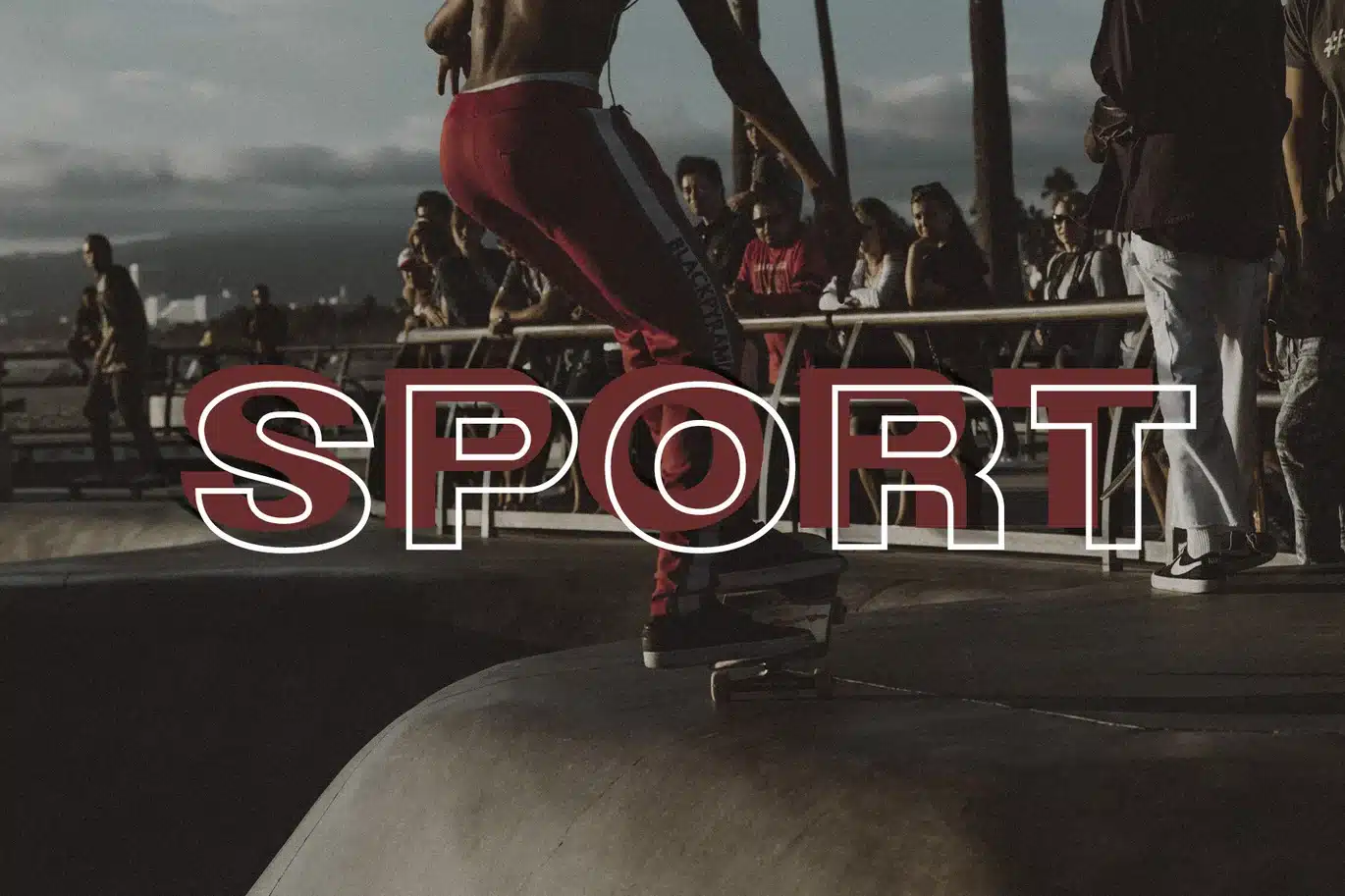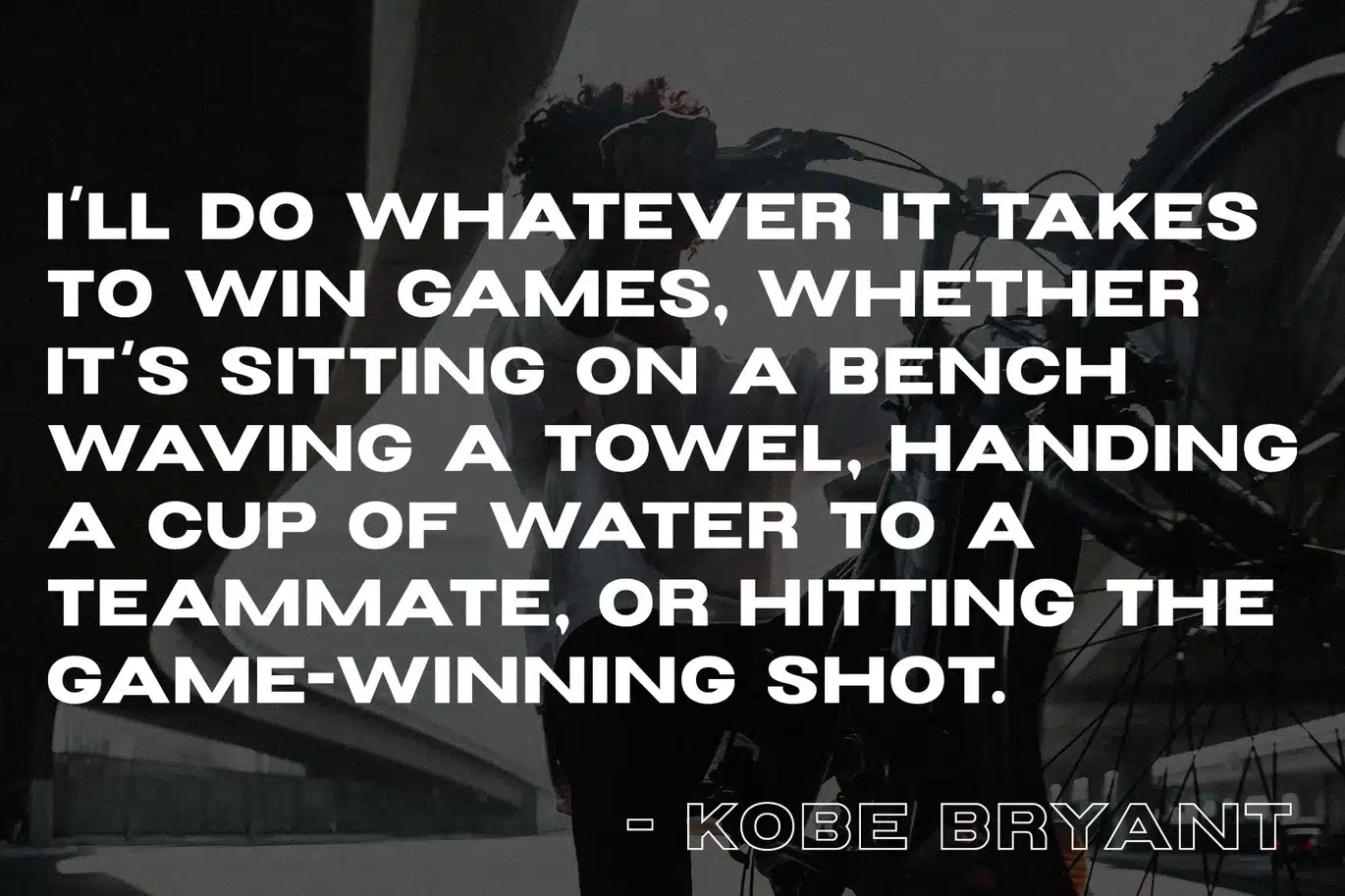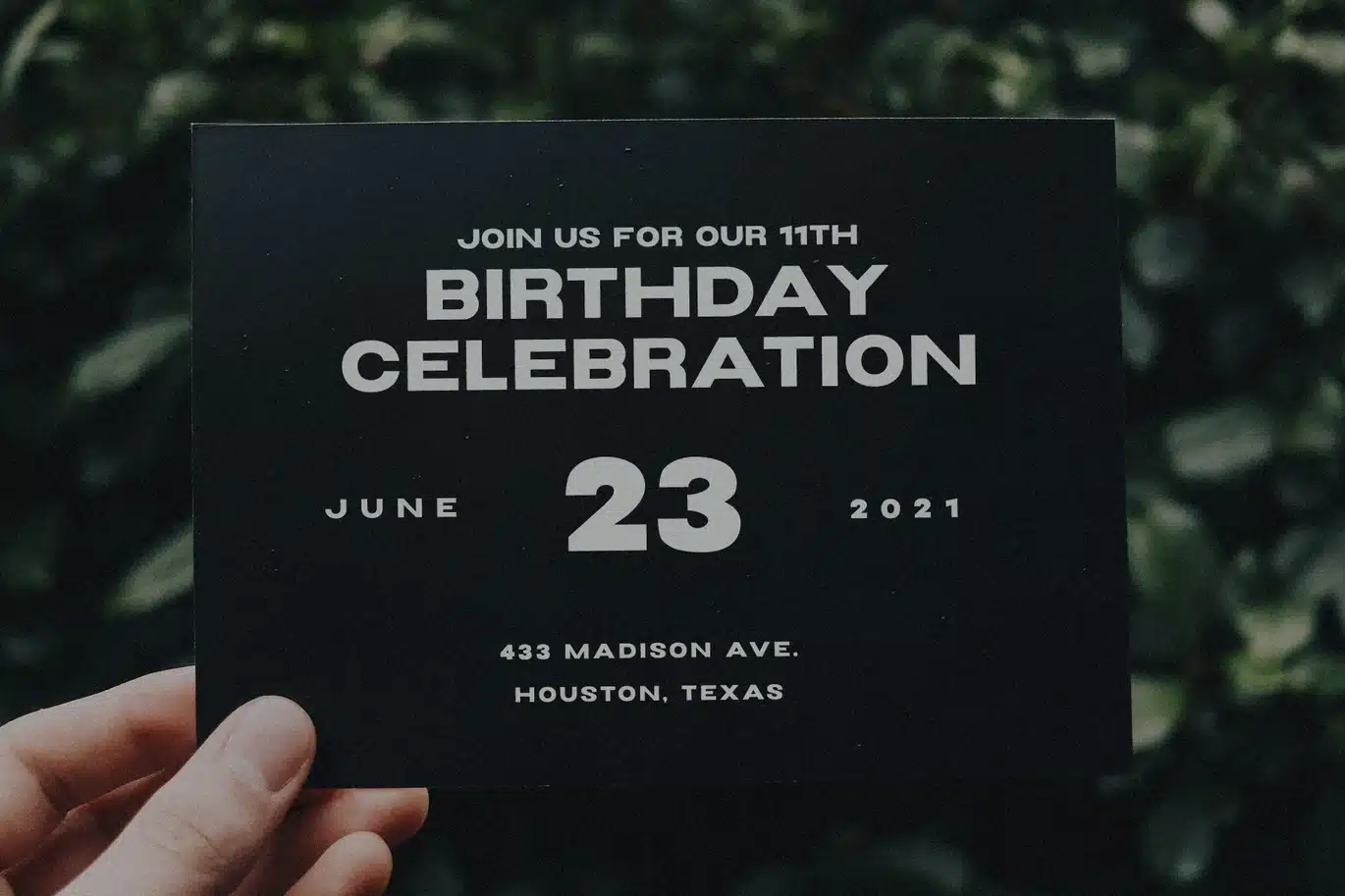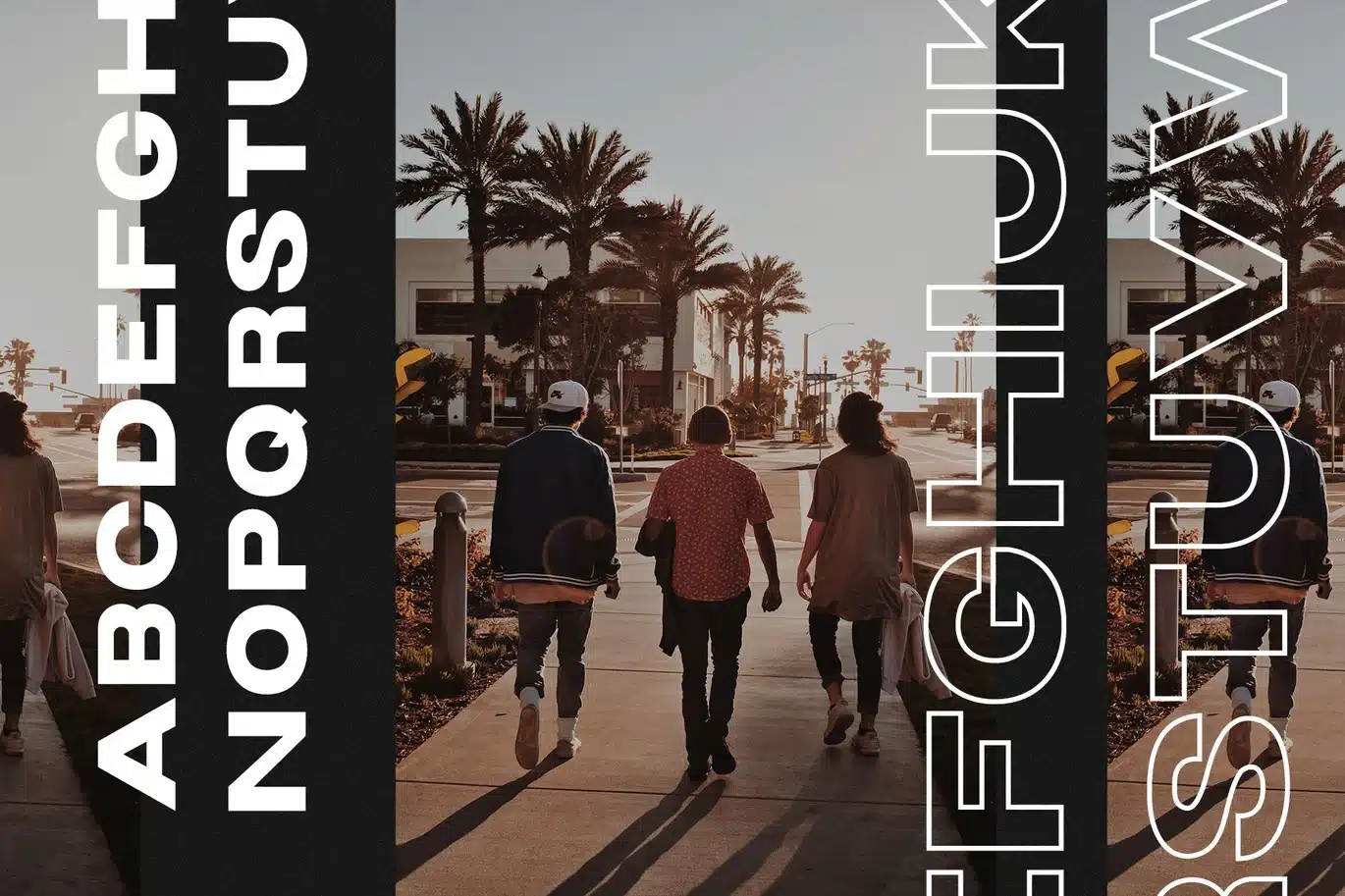
Triumph – Sans Serif Wide Font
mankoff
TRIUMPH WIDE FONT will perfect for many project: fashion, magazines, logo, branding, photography, invitations, wedding invitation, quotes, blog header, poster, advertisements, postcard, book, websites, etc.
- All Caps letters, numbers, punctuation